Technology giant IBM has been using the language of Helvetica for years. The typeface has been its choice for efficient, machine-like font designed to evoke a modern sensibility.
But it has decided that it won't be using the popular font anymore. Instead of using Helvetica, the company starts using a typeface called 'IBM Plex'.
This may seem like a small update, but the change is a major milestone for IBM as one of the oldest technology company in the world. Helvetica has been inside IBM's design legacy and is already having a massive exposure throughout the company and its products.
By replacing Helvetica, the IBM Plex is making its way to all IBM's software, websites, signage, PowerPoint presentations, business forms, and marketing initiatives. And it is available in 110 languages, in serif and sans serif versions, and in eight weights.
IBM has also decided to make IBM Plex available for anyone to download and use for free.
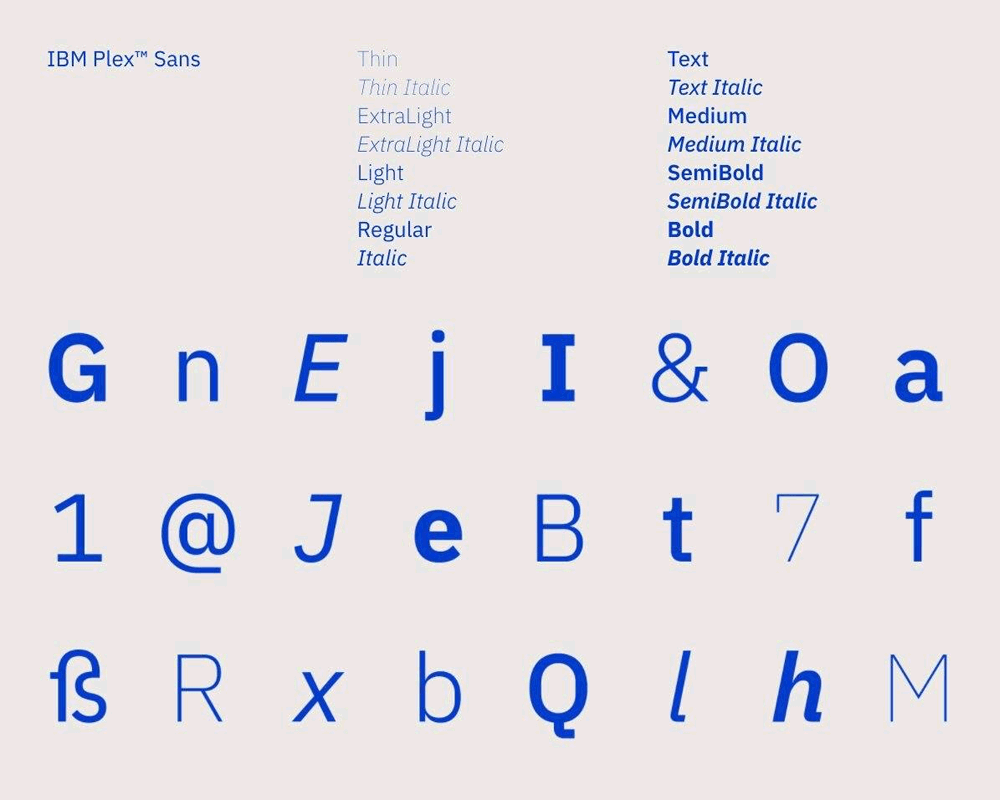
As a technology company with experience, IBM has been obsessed with perfection and good design. Its creative team has been clamoring for a unique corporate typeface for a while, but the project has languished.
"It’s difficult. You have to find the right type designer who really gets you," said Terry Yoo, VP of IBM's brand strategy and experience design. IBM has been spending over a million dollars every year to use Helvetica.
Because fonts are digital assets that companies license on a per-user basis and the digital typeface company Monotype owns the rights to Neue Helvetica, not all of the 380,000 IBM employees had access to the font on their machines.
The attempt to redesign IBM's typeface began in 2015 when Mike Abbink, a graphic designer, joined IBM.
With experience in working with brand strategy firms Wolff Olins and MetaDesign, Abbink has worked for the renowned typographer Erik Spiekermann,
Abbink has also developed an acuity for translating a company’s values into letterforms. He was also credited for designing the uplifting Inspira typeface for General Electrics and the lively NBCU Rock for NBC Universal.
"When I came to IBM, it was a big discussion: Why doesn’t IBM have a bespoke typeface? Why are we still clinging to Helvetica?…Helvetica was a child from a particular set of modernist thinking that’s gone today," explained Abbink in an internal video.
Helvetica was with IBM since the 1960s, and at that time, it was great because the company wanted to change its image as a maker of meat grinders and cheese slicers to one as a producer of advanced business machines.
But as IBM's business has since changed again: from selling PCs and computer hardware to enterprise software for companies and governemt, including Artificial Intelligence. So at its core, IBM has changed over the years, and Helvetica is too old to represent IBM's business.
Abbink and his team spent two years deliberating on a typeface that would capture IBM's qualities. The IBM Plex typeface was inspired by gothic fonts such as Franklin Gothic or Bell Gothic, which look modern but not 'soulless' like Helvetica.
The result is a hybrid of blocky but engineered shapes, combined with natural gestures from handwriting.
"Plex is about finding the quirkiness between manmade things and engineered moments and bringing that into letterforms," said Abbink.
"Outside of a large enterprise, no one can really afford to create a beautiful, well-crafted typeface and not take money for it, For folks like Google and ourselves which are about transforming the world, I think it makes sense.…It would reach a lot of people, we feel it should be given away. I think if you’re going to stand behind ‘design’ as a cultural posture, then it’s your responsibility to make sure open source typefaces you’re sharing are good."
Initially, IBM wanted the typeface to be called "Eliot," as a tribute to the founding architect of its design program, Eliot Noyes. However, Noyes’s family declined to lend their name to the font, This was when Abbink came up with "plex."
"Plex is being a part of something before it, like [the word] ‘duplex,'" explains Abbink. "It’s basically a component of IBM."
To showcase the grand design, IBM created a homage to IBM Plex by wrapping the exterior of an 780,000 square meter building with it.